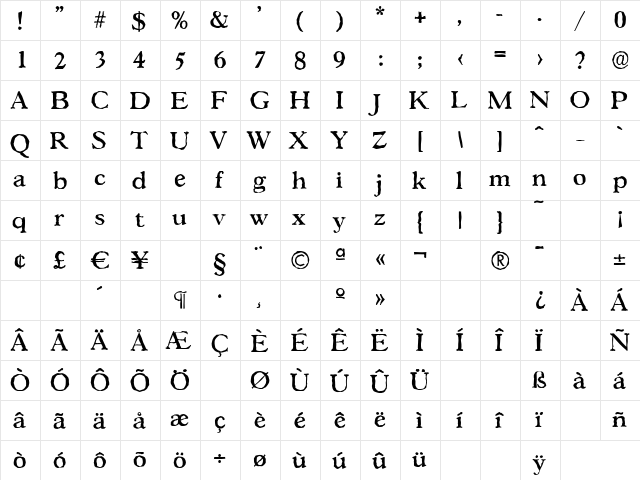
GascogneAntique-Medium Regular Font Preview
GascogneAntique-Medium Regular
GascogneAntique-Medium Regular Font Details
Design Context for GascogneAntique-Medium Typeface
GascogneAntique-Medium wears its vintage influences proudly, with letterforms that recall mid-century signage, classic packaging, and nostalgia-driven design.
Font Pairing: Combine GascogneAntique-Medium with a simple slab or neutral sans — period-accurate companions reinforce the vintage feel without competing for attention.
Pro Tip: Use GascogneAntique-Medium for headlines and pull quotes rather than body copy — its personality is best appreciated in short, focused bursts.